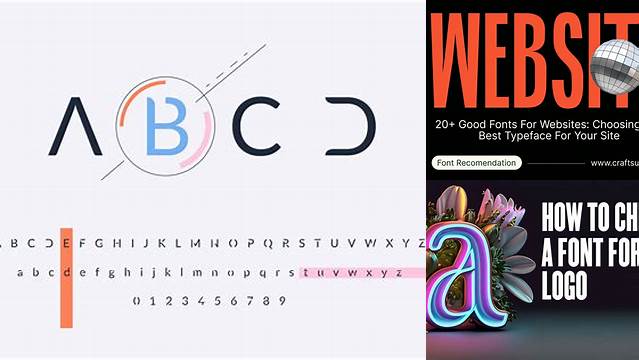
Best Premium Fonts For Logos: Elevate Your Brand
Choosing the perfect font for a logo is a critical decision that can significantly impact a brand's identity and recognition. The typeface you select communicates personality, values, and overall brand message. While free fonts offer a tempting starting point, investing in premium fonts can provide a distinct edge. Premium fonts often boast superior quality, extensive character sets, unique designs, and better licensing options, ultimately elevating your brand's visual identity. In this guide, we'll delve into the world of premium fonts for logos, exploring why they matter, what to look for, and some standout options to consider for your next logo design project. Selecting the right premium font can truly transform your logo from ordinary to outstanding, leaving a lasting impression on your target audience. So, if you're aiming for a logo that exudes professionalism and captures attention, understanding the value of premium fonts is a must.
Why Premium Fonts Matter for Logo Design
Guys, let's talk about why springing for premium fonts is a game-changer when it comes to logo design. You might be thinking, "Free fonts are cool, right?" And yeah, they can be! But when you're building a brand, your logo is like the handshake – it's the first impression. You want it to be strong, memorable, and, most importantly, unique. That's where premium fonts step in and steal the show. Premium fonts are really important for logo design because they offer a level of quality and distinction that free fonts often can't match. Think of it this way: a premium font is like a tailored suit, while a free font might be off-the-rack. Both will cover you, but one just fits better and looks more polished. The impact of a well-chosen font on brand perception cannot be overstated. A premium font often comes with a larger character set, including glyphs, alternates, and multiple weights, which provides greater flexibility and customization options. This means you can fine-tune the font to perfectly match your brand's aesthetic and create a truly unique visual identity.
The Superior Quality of Premium Fonts
One of the biggest perks of premium fonts is the sheer quality. These fonts are crafted with meticulous attention to detail, ensuring crisp lines, balanced letterforms, and overall visual harmony. Free fonts, on the other hand, can sometimes suffer from inconsistencies and technical limitations. This superior quality translates to a more professional and polished logo, immediately boosting your brand's credibility. Premium fonts undergo rigorous testing and refinement to ensure optimal performance across various media, from print to digital. This means your logo will look sharp and legible whether it's on a business card, website, or billboard. Moreover, premium fonts often include extended character sets, featuring ligatures, alternates, and swashes, giving designers more creative control and the ability to craft truly unique typographic solutions. The investment in premium fonts reflects a commitment to excellence and attention to detail, which are qualities that resonate with customers and contribute to a brand's overall perception of quality and trustworthiness.
Exclusivity and Uniqueness
Let's face it: in today's crowded marketplace, standing out is crucial. Using a common free font can make your logo look generic and easily forgettable. Premium fonts, on the other hand, offer a sense of exclusivity. They're less likely to be overused, giving your logo a distinctive edge. This uniqueness helps your brand differentiate itself from competitors and create a lasting impression on your target audience. Premium fonts are often designed by talented typographers who pour their creativity and expertise into crafting unique and expressive letterforms. This artistry translates into a logo that feels bespoke and tailored to your brand's personality. Furthermore, the exclusivity of premium fonts can protect your brand's visual identity, preventing it from being diluted by widespread use of the same font. By investing in a premium font, you're not just buying a typeface; you're investing in a unique visual asset that will contribute to your brand's long-term success and recognition.
What to Look for in a Premium Font for Logos
So, you're sold on premium fonts, awesome! But with so many options out there, how do you choose the right one? Don't worry, I've got you covered. There are a few key things to keep in mind when selecting a premium font for your logo. First, consider your brand's personality. Is it playful and modern? Classic and sophisticated? The font should reflect those qualities. Second, think about legibility. A beautiful font is useless if it's hard to read. And third, make sure the font has the styles and weights you need (bold, italic, etc.) for different applications. When choosing a premium font for your logo, it's essential to align the typeface with your brand's values, target audience, and overall aesthetic. The font should evoke the desired emotions and associations, whether it's trustworthiness, innovation, or creativity. It's also crucial to assess the font's legibility across various sizes and formats, ensuring that it remains clear and readable even in small applications, such as favicon or mobile display. A versatile premium font will offer a range of weights and styles, providing designers with the flexibility to create a cohesive visual identity across all branding materials.
Brand Personality and Tone
Think of your brand as a person. What's its vibe? Is it the cool, edgy type? Or the sophisticated, reliable friend? Your logo font needs to match that personality. A premium font with clean lines and a minimalist design might be perfect for a tech startup, while a more elegant serif font could suit a luxury brand. The key is to choose a font that communicates your brand's essence. Premium fonts offer a wide spectrum of styles, from playful and whimsical to serious and authoritative, allowing you to find the perfect match for your brand's unique character. Consider the emotions and associations that the font evokes – does it feel modern, vintage, or timeless? Does it convey a sense of trust, innovation, or excitement? By carefully selecting a premium font that aligns with your brand's personality, you can create a logo that resonates with your target audience and reinforces your brand's message. The font is a visual voice for your brand, and choosing the right one is essential for making a strong and lasting impression.
Legibility and Readability
This one's a no-brainer, but it's worth repeating: your logo font needs to be legible. A fancy, decorative font might look cool, but if people can't read your brand name, what's the point? Opt for a premium font that's clear and easy to read, even at small sizes. Think about how the font will look on different backgrounds and in different colors. A highly legible font ensures that your logo remains effective and recognizable across various applications, from business cards and websites to signage and merchandise. Consider the spacing between letters and the overall clarity of the letterforms. A well-designed premium font will maintain its legibility even when scaled down, ensuring that your brand name remains prominent and easily identifiable. Moreover, the font should be readable in both print and digital formats, accommodating the diverse range of media in which your logo will be used. By prioritizing legibility, you can ensure that your logo effectively communicates your brand's message and reinforces brand recognition.
Styles and Weights
Flexibility is key, guys! A premium font with multiple styles and weights (bold, italic, light, etc.) gives you more options for creating a versatile logo system. You might use a bold weight for your main logo and a lighter weight for subheadings or taglines. Having these options ensures consistency across all your branding materials. Premium fonts with a wide range of styles and weights empower designers to create nuanced and visually compelling logos that adapt to different contexts and applications. For instance, a bold weight might be ideal for a primary logo that needs to stand out, while a light weight could be used for smaller text elements or secondary branding materials. Italic styles can add emphasis and visual interest, while condensed styles can be used to fit more text into a limited space. The availability of various weights and styles ensures that your logo remains consistent and legible across all platforms and media, reinforcing brand recognition and creating a cohesive visual identity. Investing in a premium font with a comprehensive set of styles and weights provides long-term value and versatility for your branding efforts.
Standout Premium Fonts for Logos
Alright, let's get to the good stuff! Here are a few standout premium fonts that are perfect for logo design. These fonts are all high-quality, versatile, and have a unique personality that can elevate your brand. We've got a mix of classic and modern styles, so there's something for everyone. When selecting a font from this list, consider how well it aligns with your brand's personality and the overall message you want to convey. Premium fonts offer a diverse range of styles, from elegant serifs to bold sans-serifs, each with its own distinct character and appeal. Exploring these options will help you identify the perfect typeface to represent your brand's unique identity. The premium fonts highlighted in this section are renowned for their quality, versatility, and aesthetic appeal, making them excellent choices for logo design. Each font has been carefully crafted to ensure optimal legibility and visual impact, contributing to a strong and memorable brand presence.
Choosing the right font for your logo is a big deal, guys. It's an investment in your brand's future. Premium fonts offer superior quality, exclusivity, and licensing benefits that free fonts simply can't match. By carefully considering your brand's personality, legibility, and the available styles and weights, you can select a premium font that elevates your logo and helps your brand stand out. So, ditch the generic free fonts and embrace the power of premium typography! The font you choose is more than just a set of letters; it's a visual representation of your brand's values and identity. Investing in a premium font demonstrates a commitment to excellence and attention to detail, which are qualities that resonate with customers and contribute to long-term brand success. By selecting a premium font that aligns with your brand's personality and target audience, you can create a logo that is not only visually appealing but also effectively communicates your brand's message and values. The choice of typeface is a critical element of brand identity, and premium fonts offer the quality, versatility, and exclusivity needed to create a truly memorable and impactful logo. Ultimately, the right premium font can be a valuable asset, helping your brand make a lasting impression and achieve its full potential.